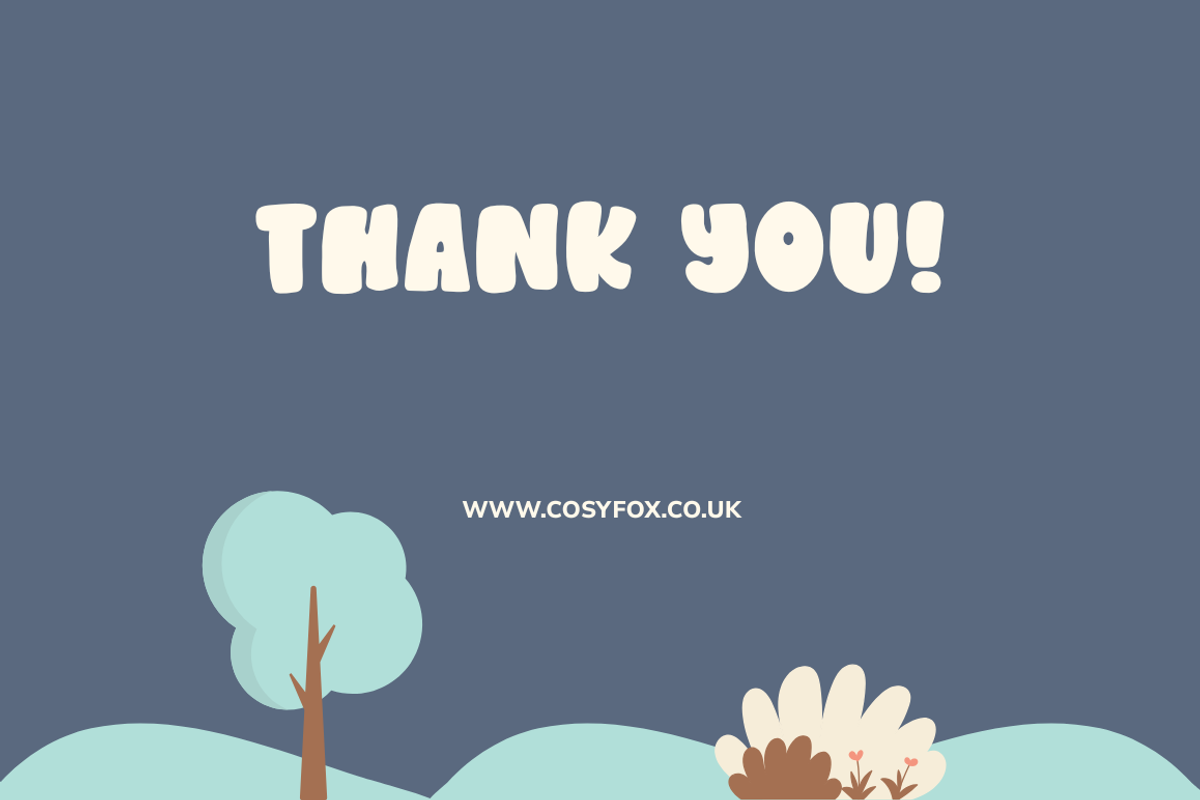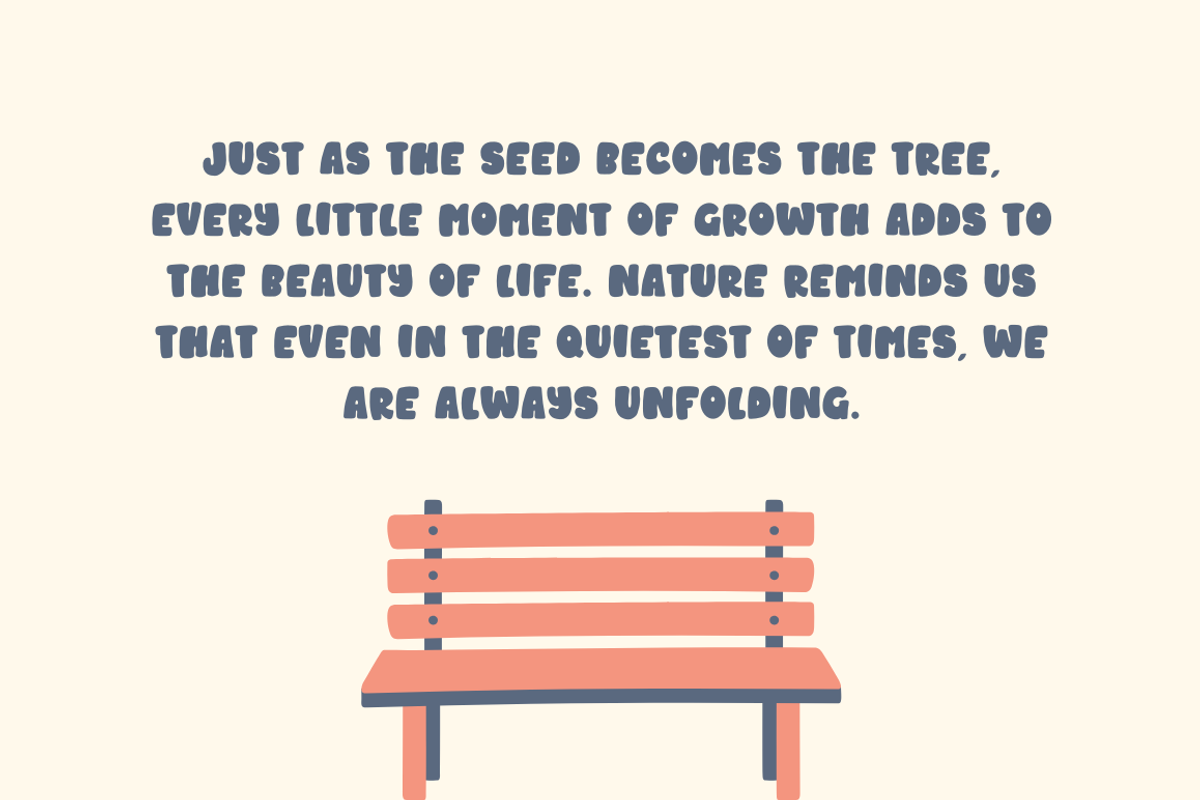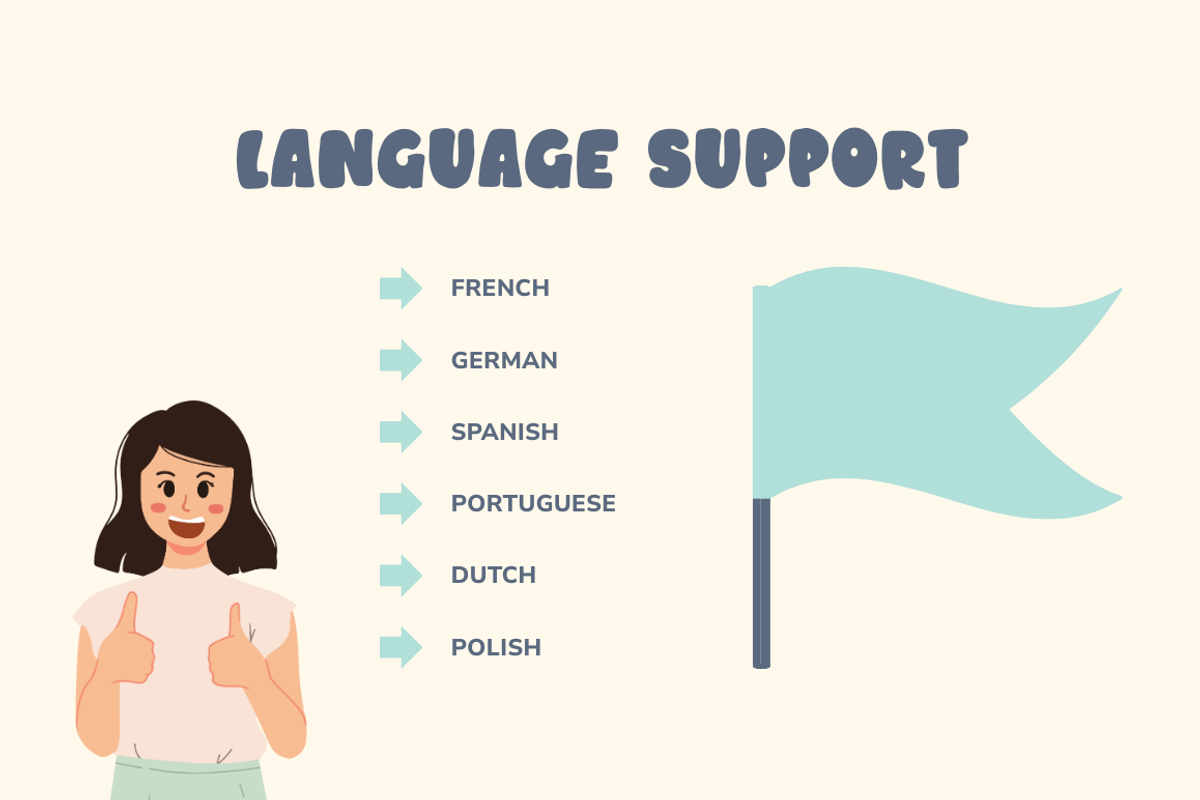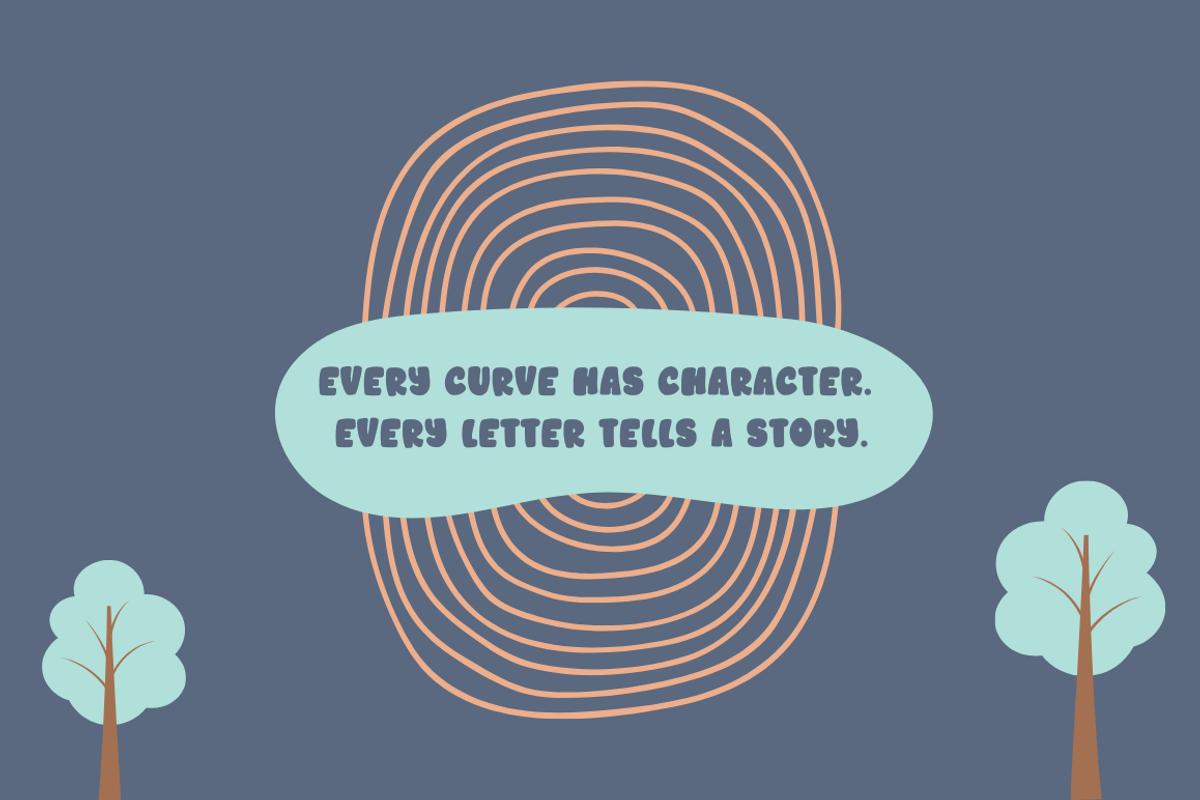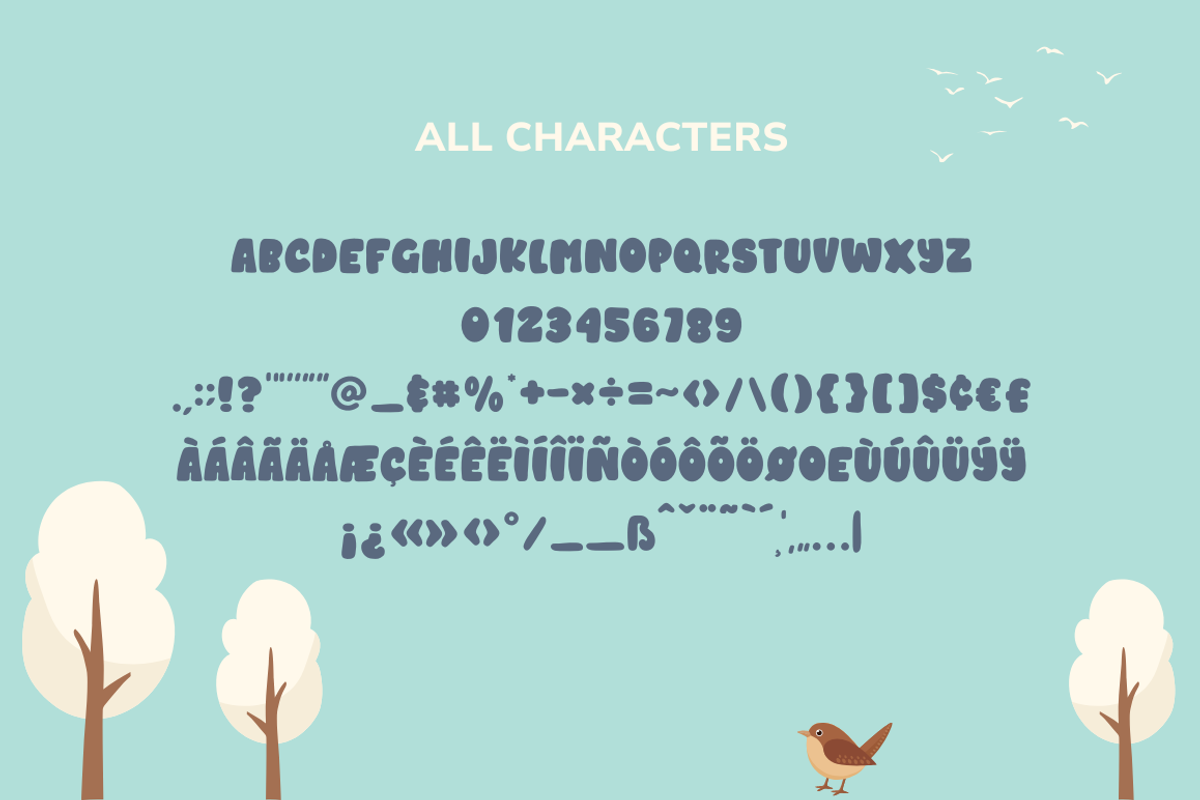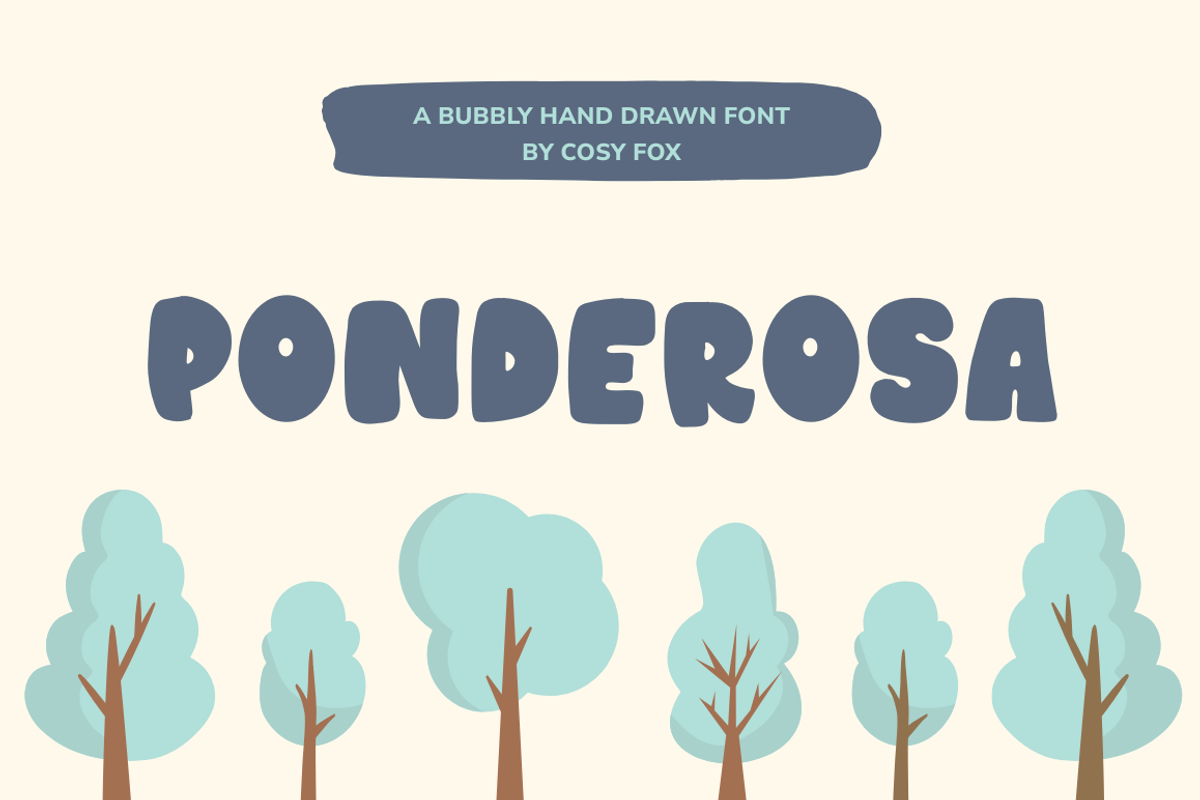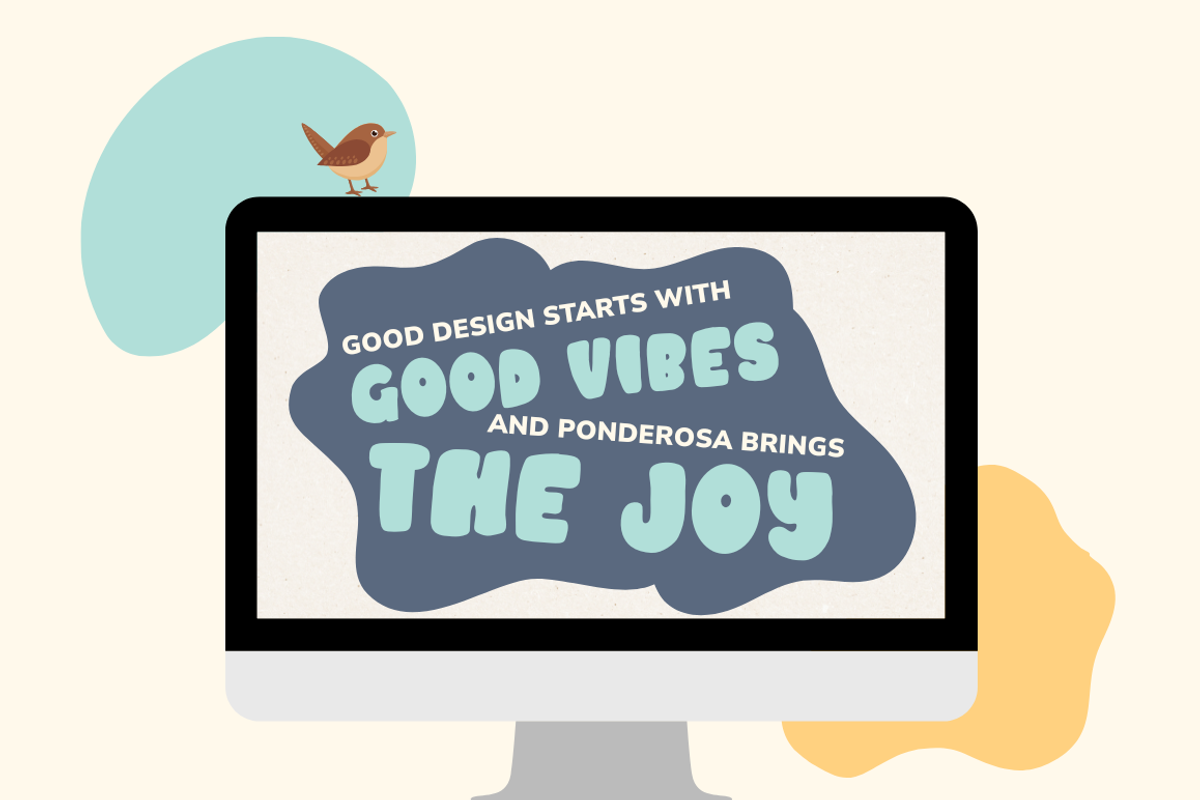
Ponderosa Display Font
Meet Ponderosa, a bold and bouncy display font that doesn’t take itself too seriously. Hand-drawn with love and full of charm, this font is perfect for playful branding, cheerful packaging, kids’ projects, or anywhere you want to add a little personality. Ponderosa’s chunky curves and friendly feel make it ideal for headlines, logos, stickers, and standout social posts. It’s easy to use, works beautifully in Canva, and brings instant warmth to your designs.
Whether you’re creating a children’s brand or just need something with a little extra joy, Ponderosa has you covered.
Language Support
French, German, Spanish, Italian and Portuguese.